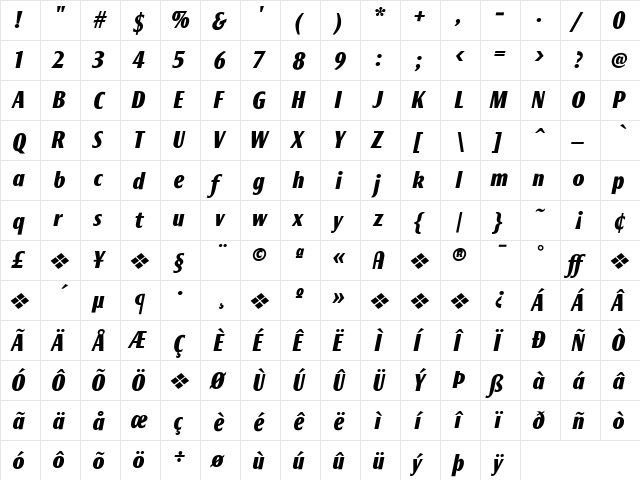
Roxy Italic
Design Context for Roxy Typeface
Roxy offers clean, dependable letterforms without strong stylistic allegiance, making it a practical choice for designers who need flexibility. The slanted form adds forward momentum and visual energy.
Pro Tip: Use Roxy for emphasis, pull quotes, and subheadings where its slanted energy can add rhythm to the layout.